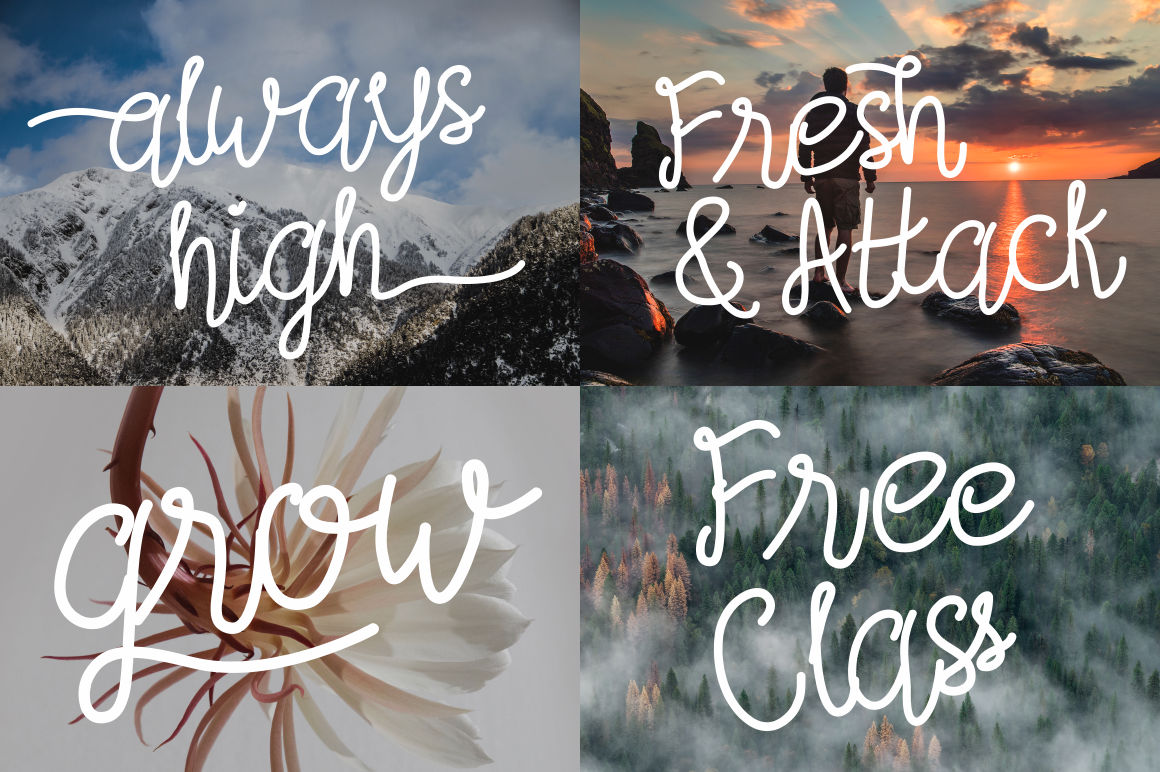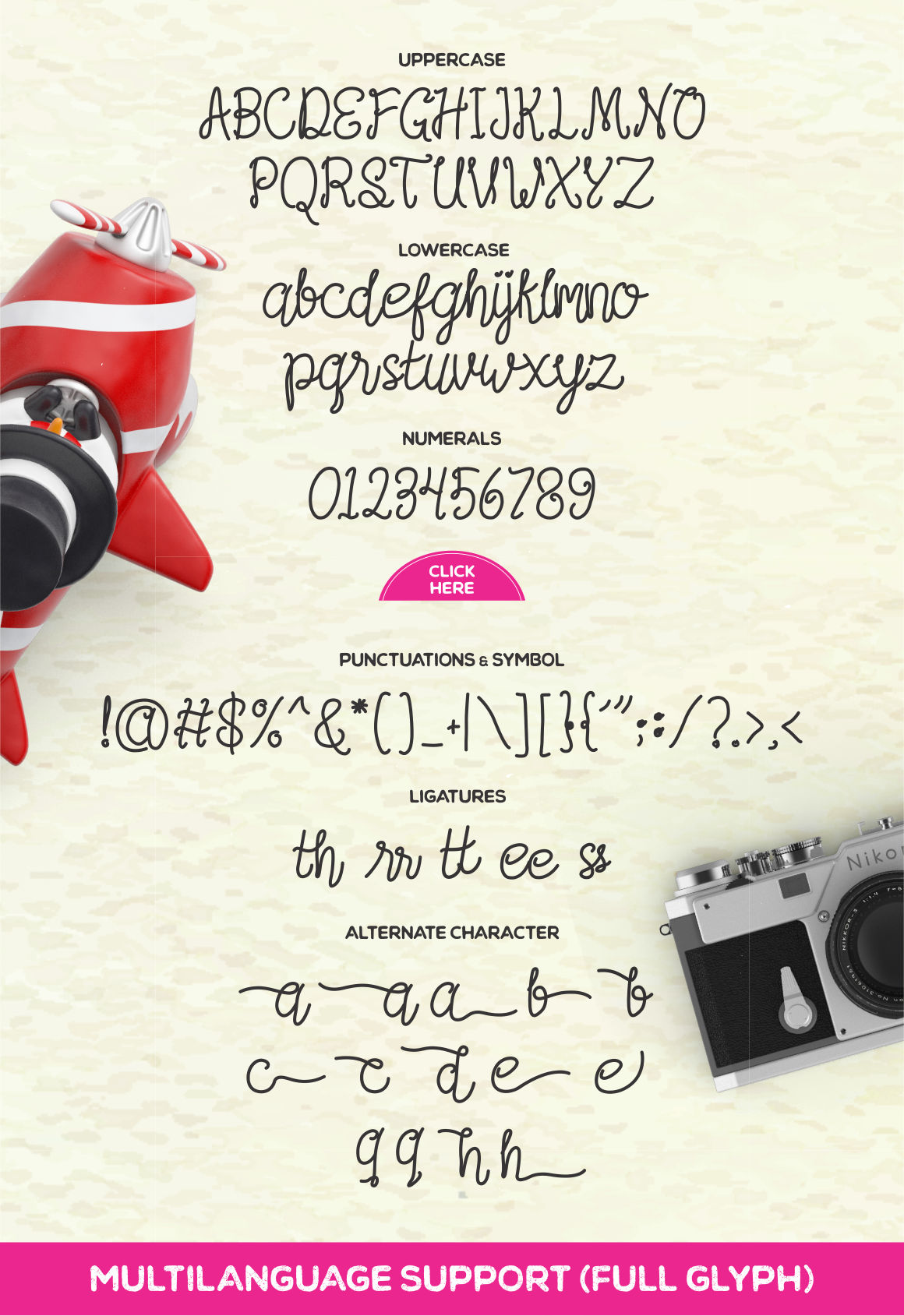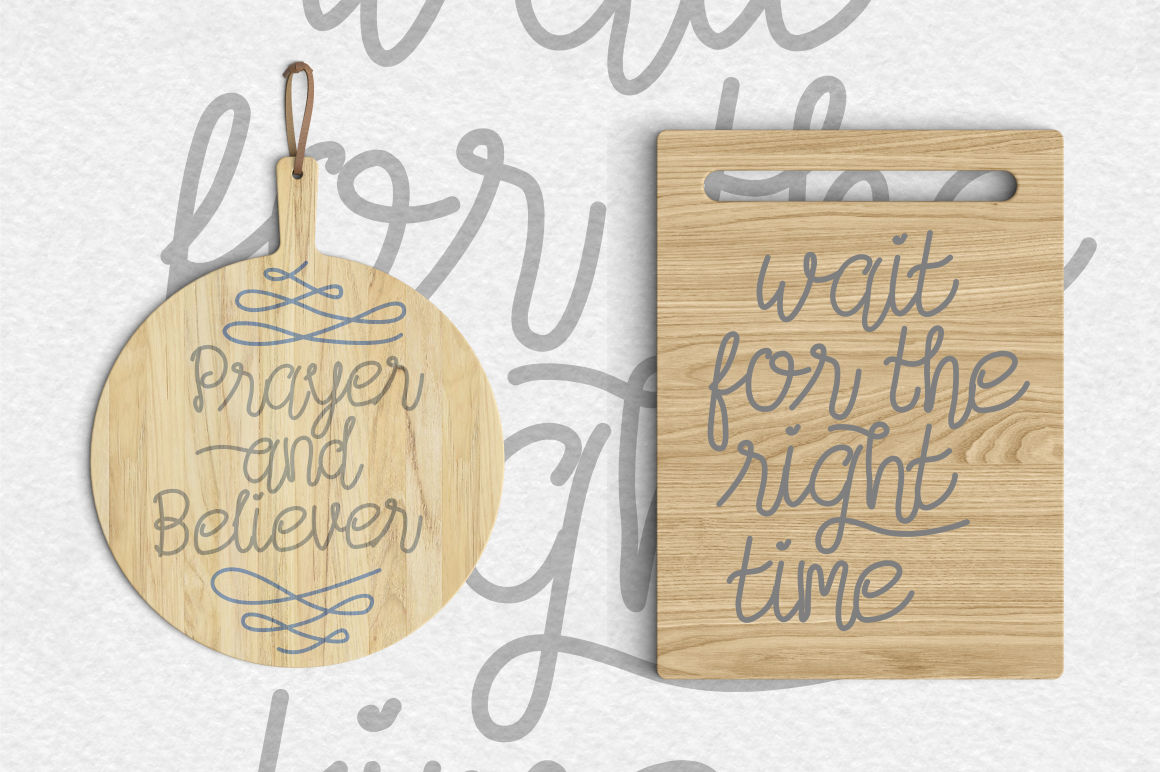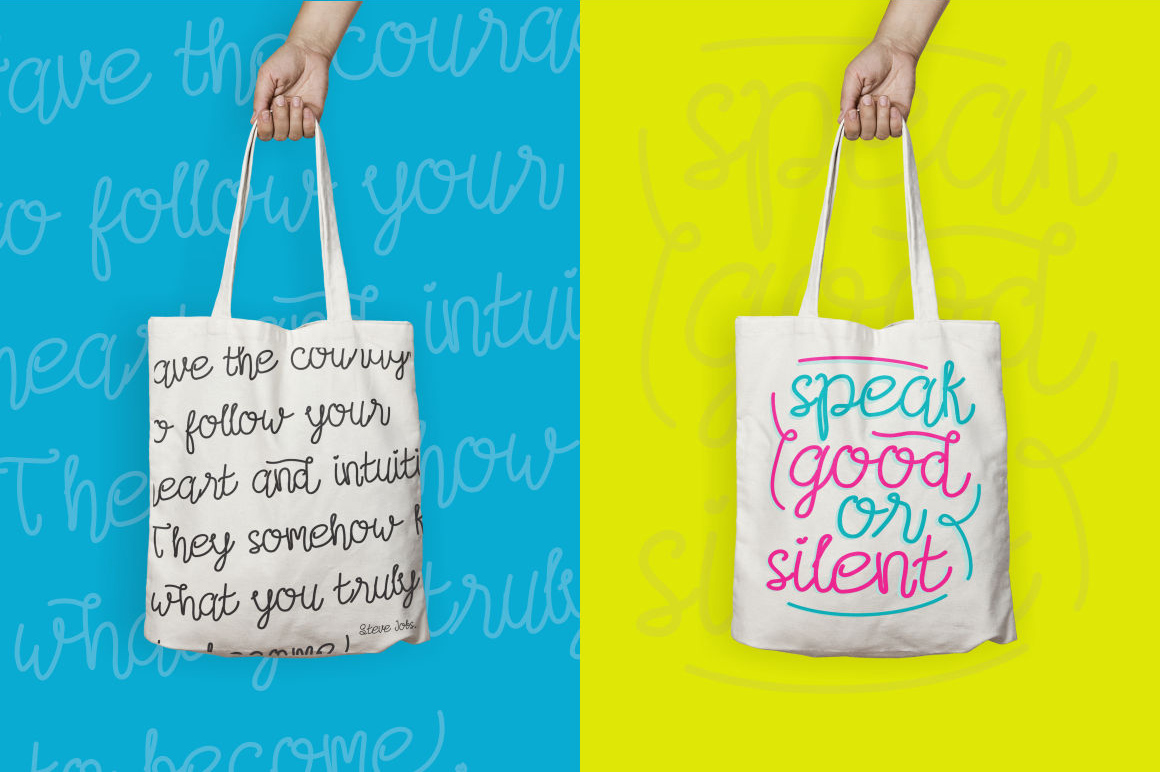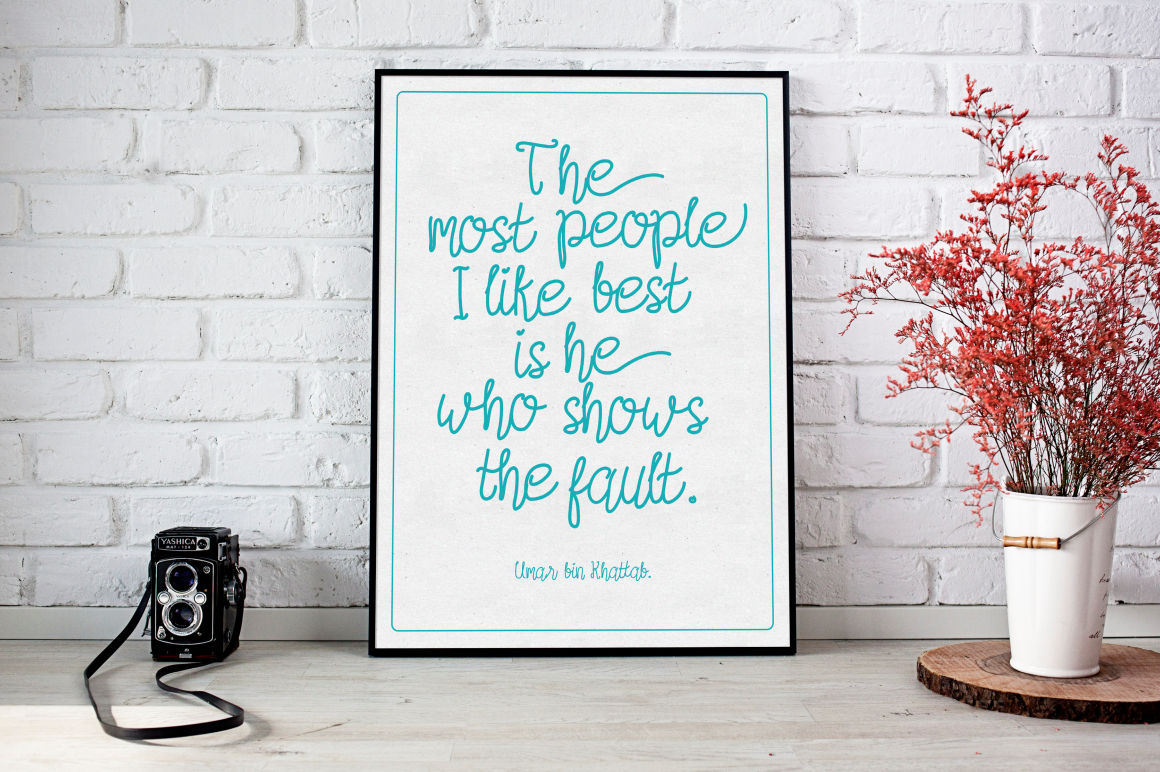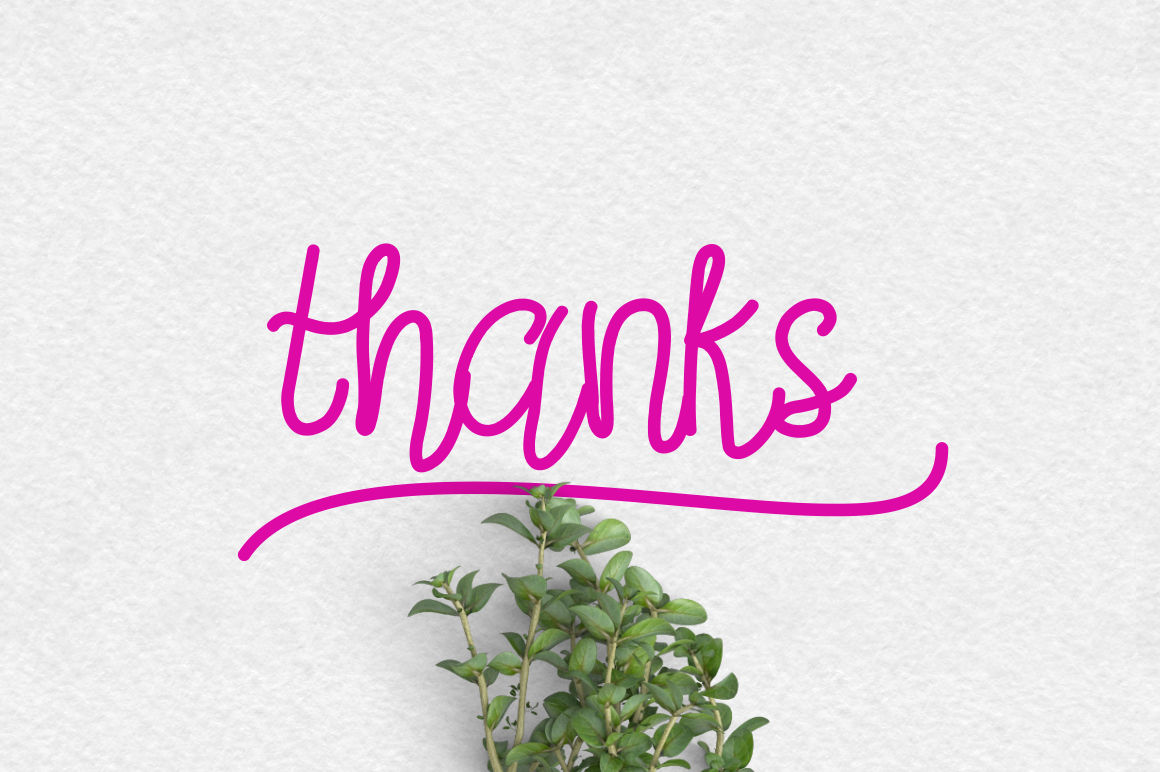
Afifah Script Font
About Afifah Script Font
Afifah Script is a genial and friendly script. With rounded edges and equal line weights, Afifah is a handwritten font that is both modern and romantic.